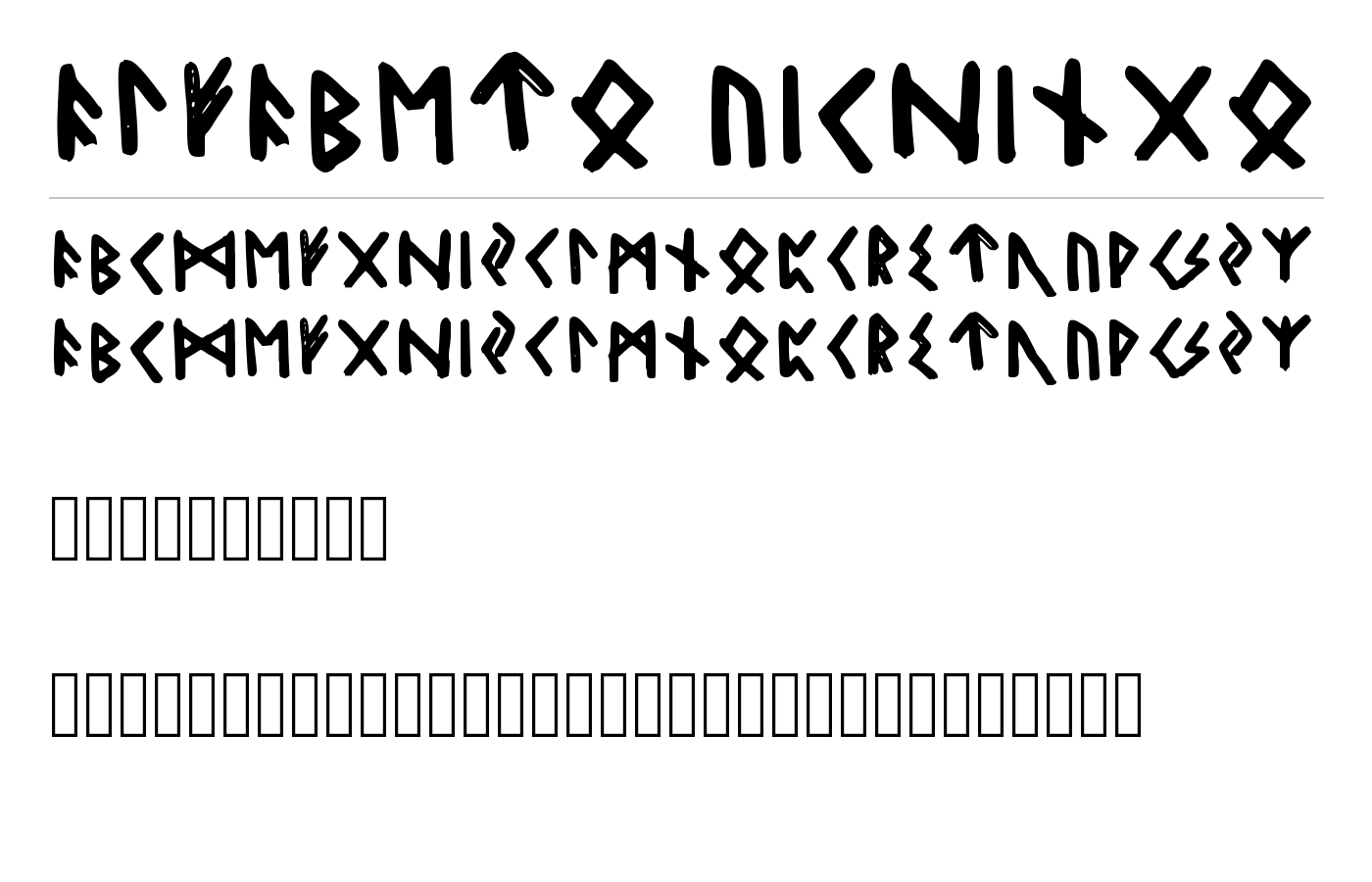
Alfabeto Vichingo is a bold, decorative display font inspired by ancient Viking runes, featuring thick, uneven strokes that give it an organic, hand-carved feel. Its distinct angular shapes and unique rune-like characters evoke a strong, historic, and mysterious atmosphere, making it ideal for thematic designs, logos, and projects seeking a rugged, adventurous vibe. This font works best in headlines or branding where a striking, cultural touch is desired rather than in extended body text.
Alfabeto Vichingo Font
About Alfabeto Vichingo Font